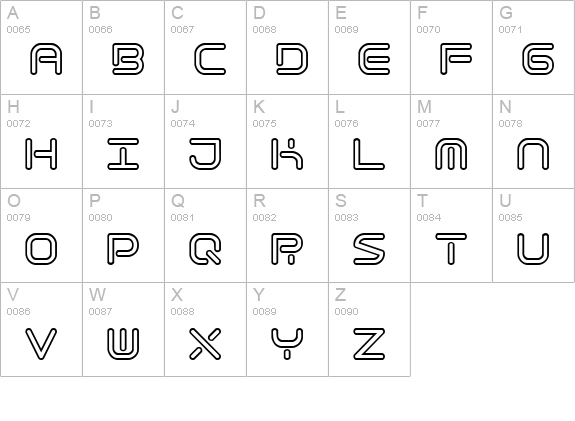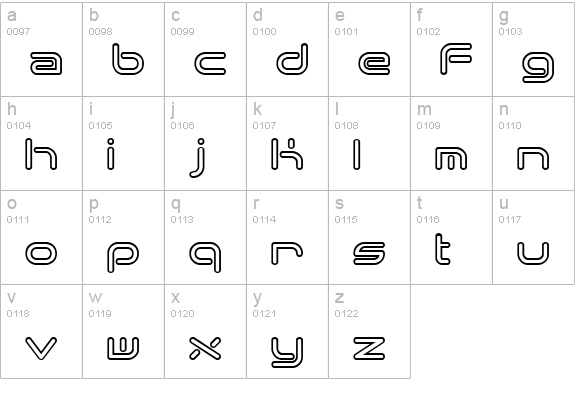
Introducing Quantum Round Hollow BRK, a captivating and futuristic font that is sure to leave a lasting impression. This cutting-edge typeface combines sleekness with a touch of quirkiness, making it perfect for a wide range of design projects. Quantum Round Hollow BRK boasts a unique and eye-catching hollow design, adding a sense of depth and visual interest to your text. Its rounded edges and carefully crafted spacing create a harmonious balance, ensuring legibility and readability across various applications. This font is ideal for modern and forward-thinking designs, whether you're working on branding, advertising, web design, or even print materials. Its versatility allows it to effortlessly adapt to different styles and themes, bringing a contemporary and professional touch to your projects. But what sets Quantum Round Hollow BRK apart is that it is not only visually stunning, but also free. Yes, you read that right – this exceptional font is freely available to download at FontsMarket.com. This means that you can enhance your designs without having to worry about breaking the bank. With Quantum Round Hollow BRK, you can unleash your creativity and explore endless possibilities. Whether you're a professional designer or a passionate hobbyist, this font will elevate your work and captivate your audience. So why wait? Head over to FontsMarket.com and get your hands on Quantum Round Hollow BRK today. Transform your designs with this remarkable font and watch as your projects come to life with a touch of modernity and sophistication.